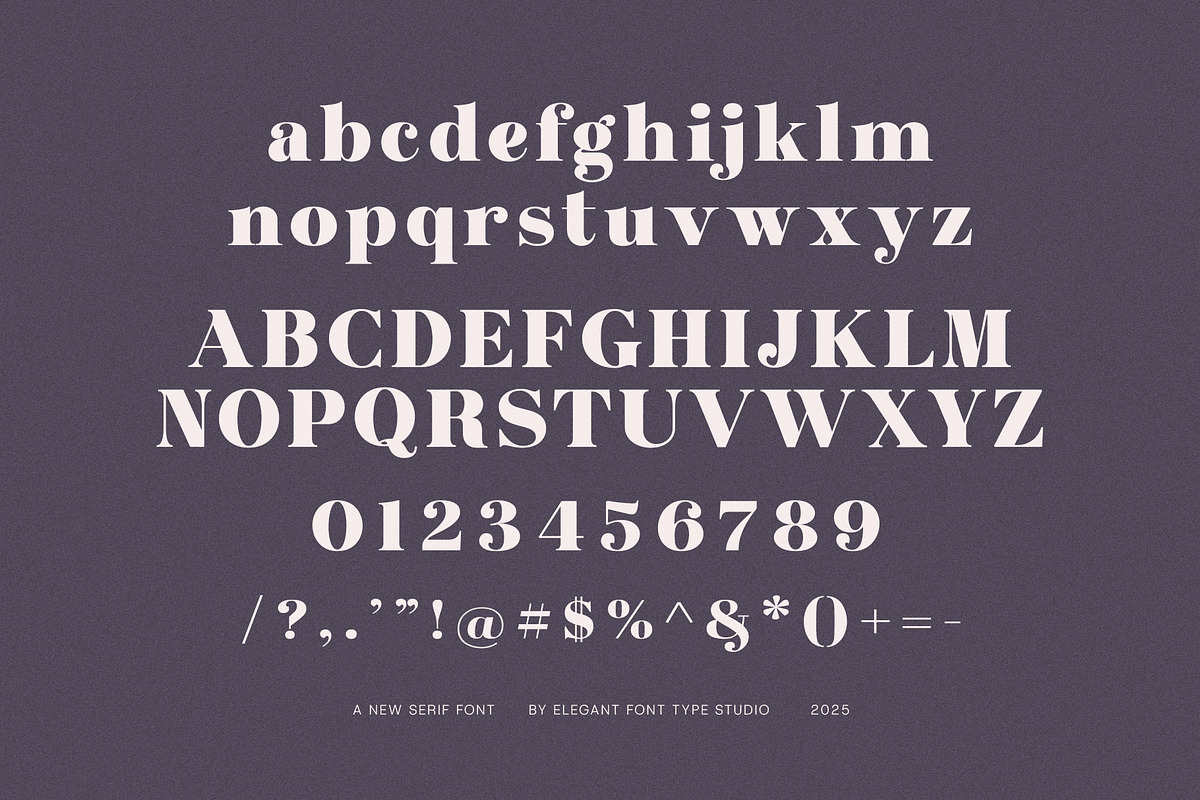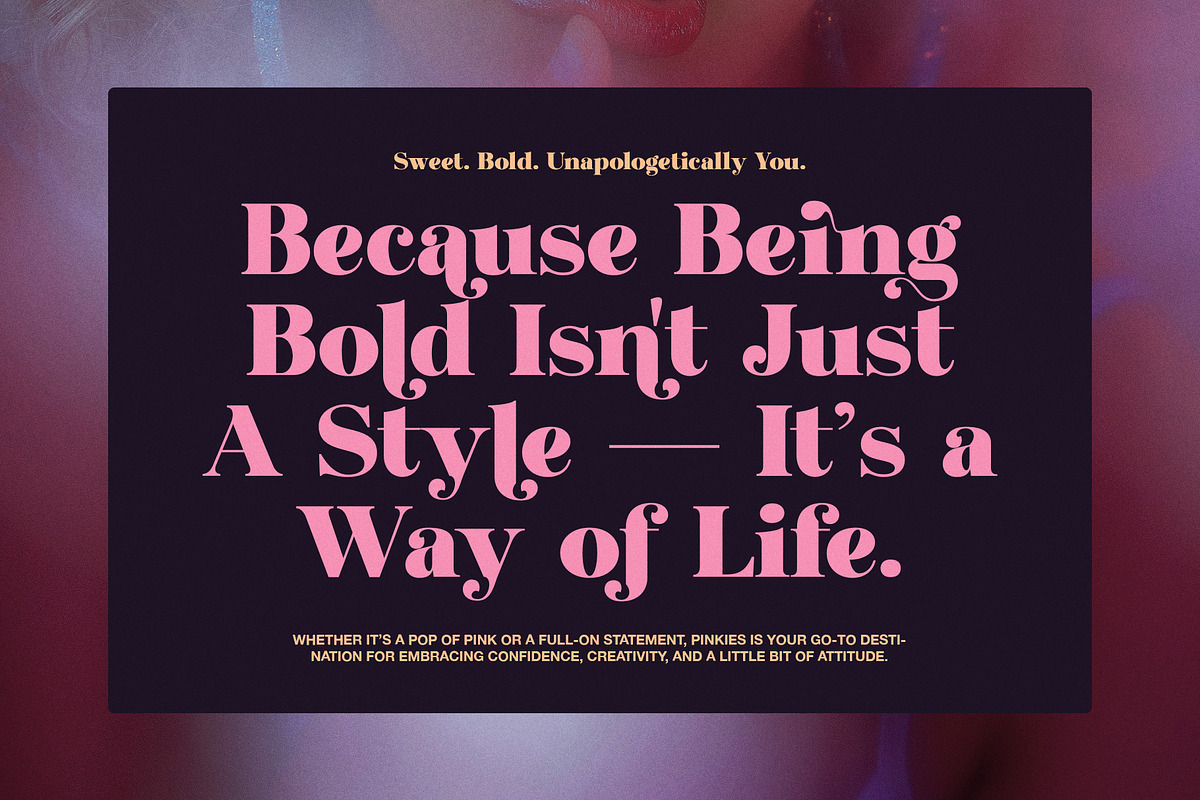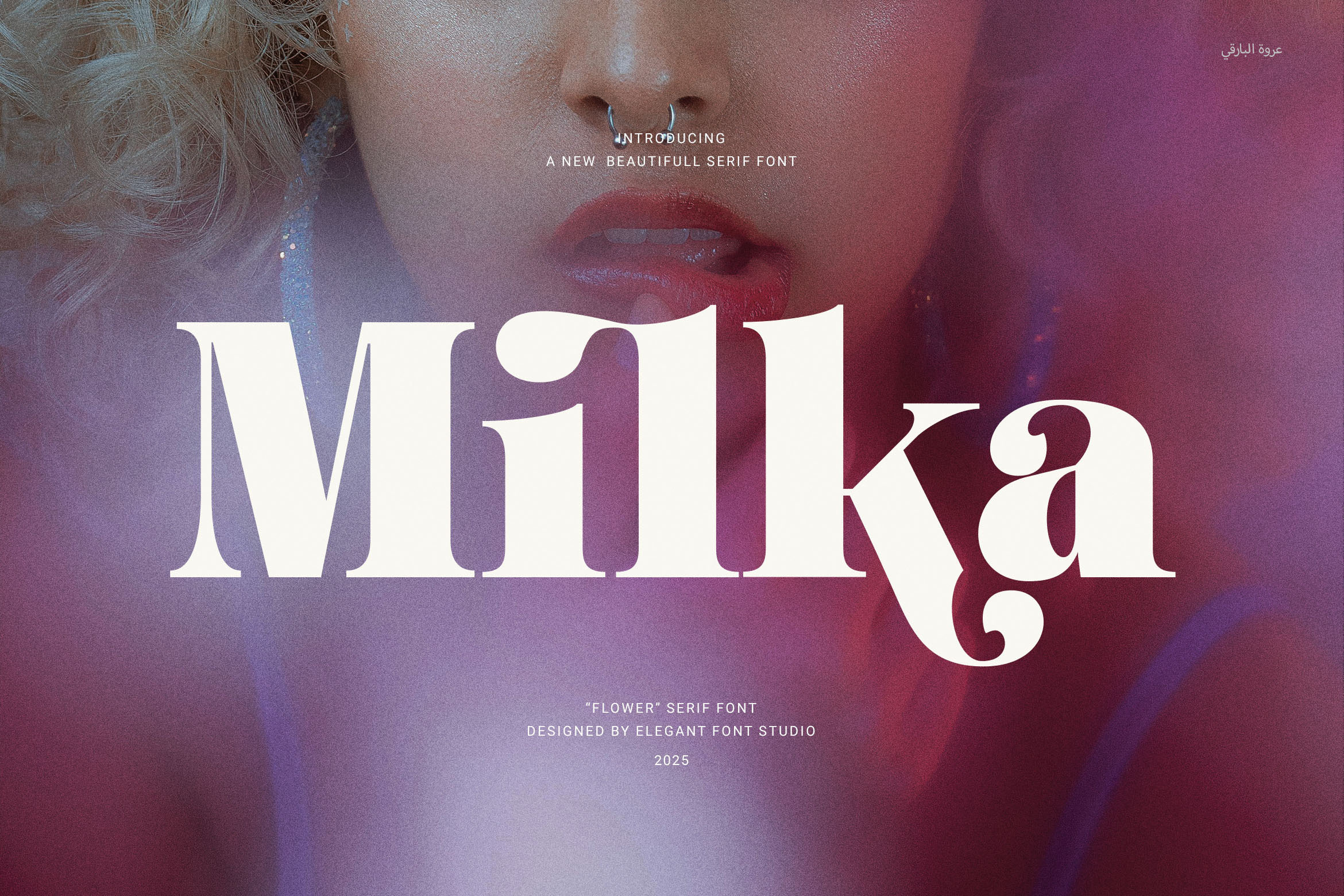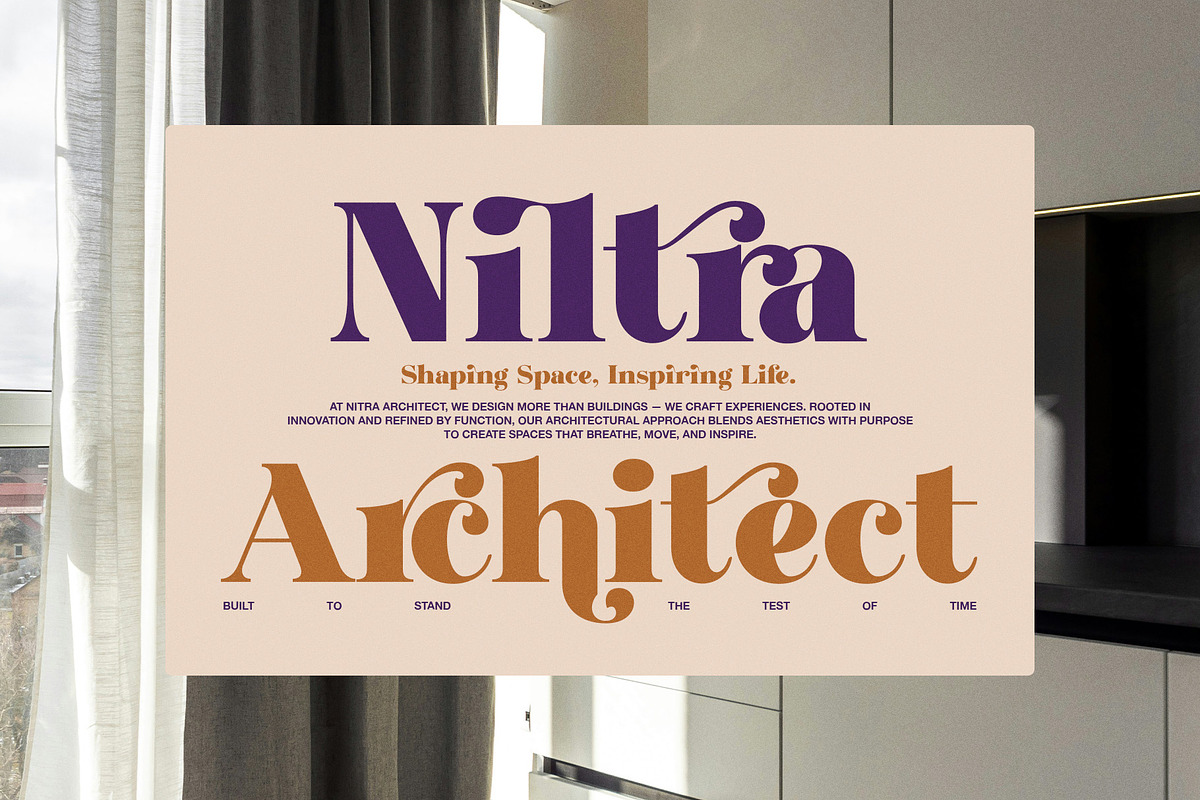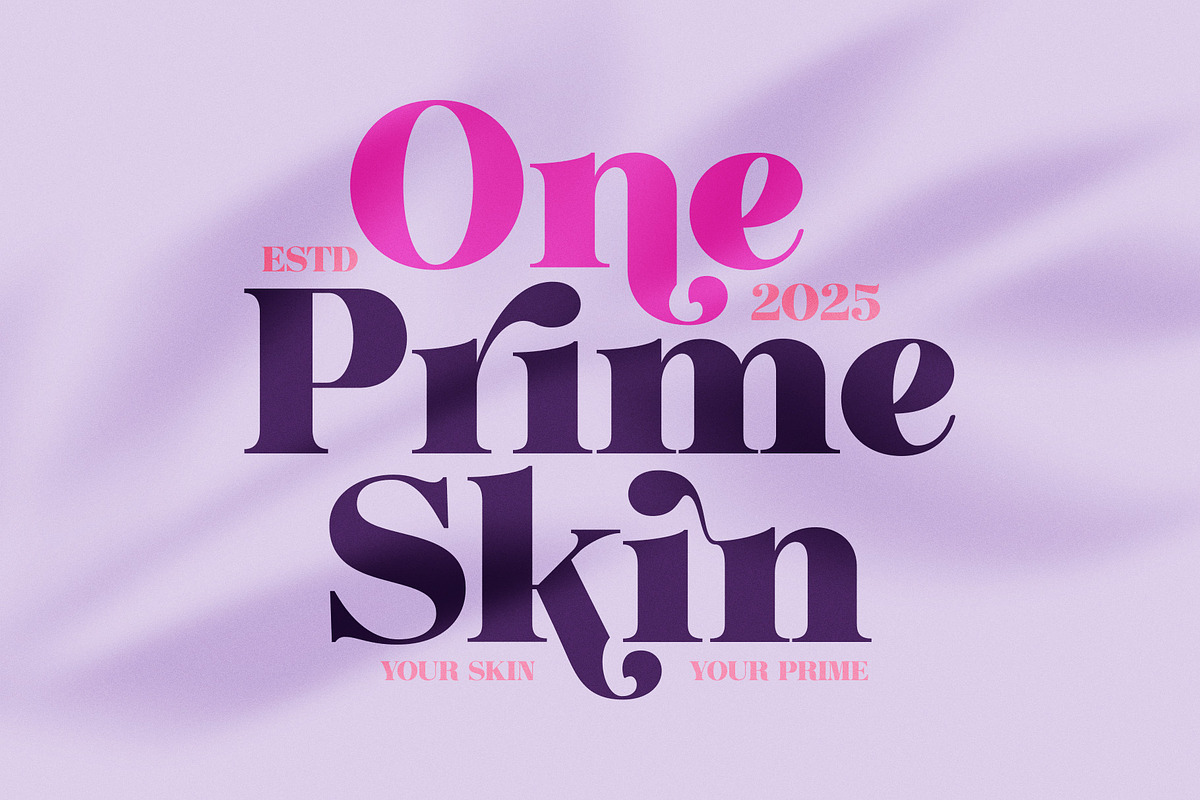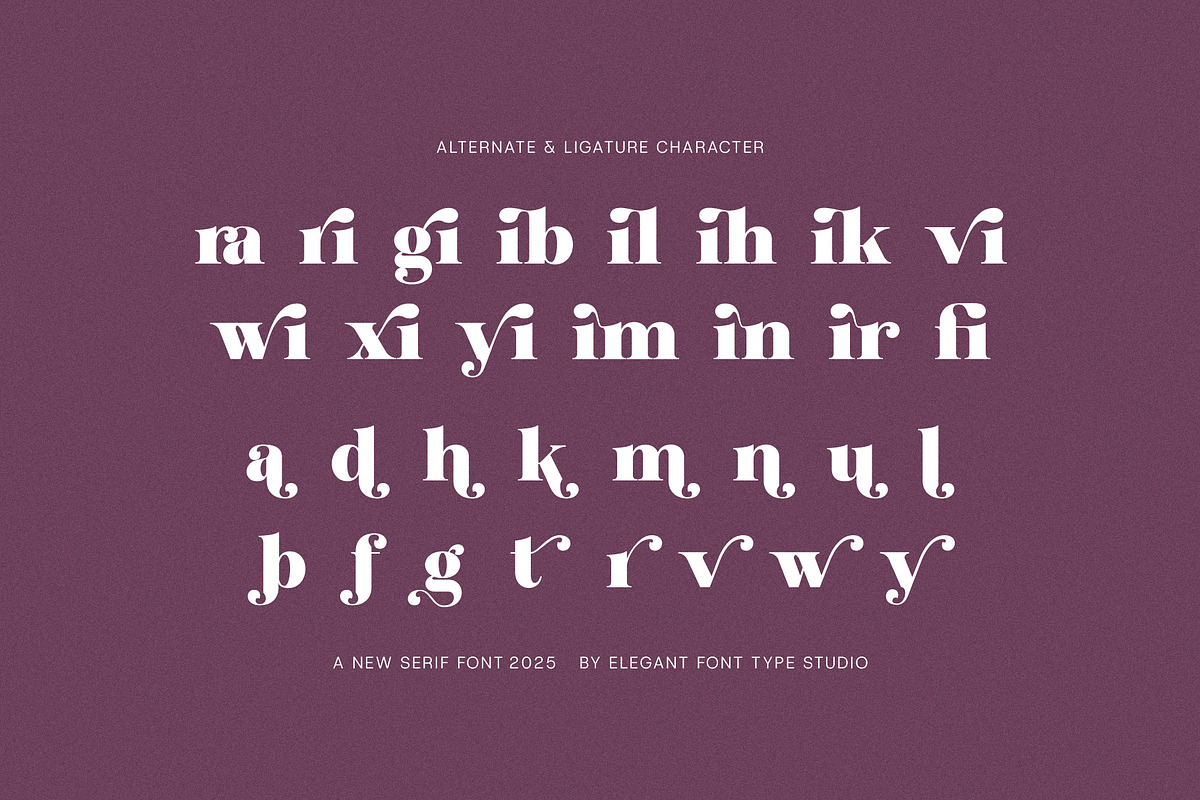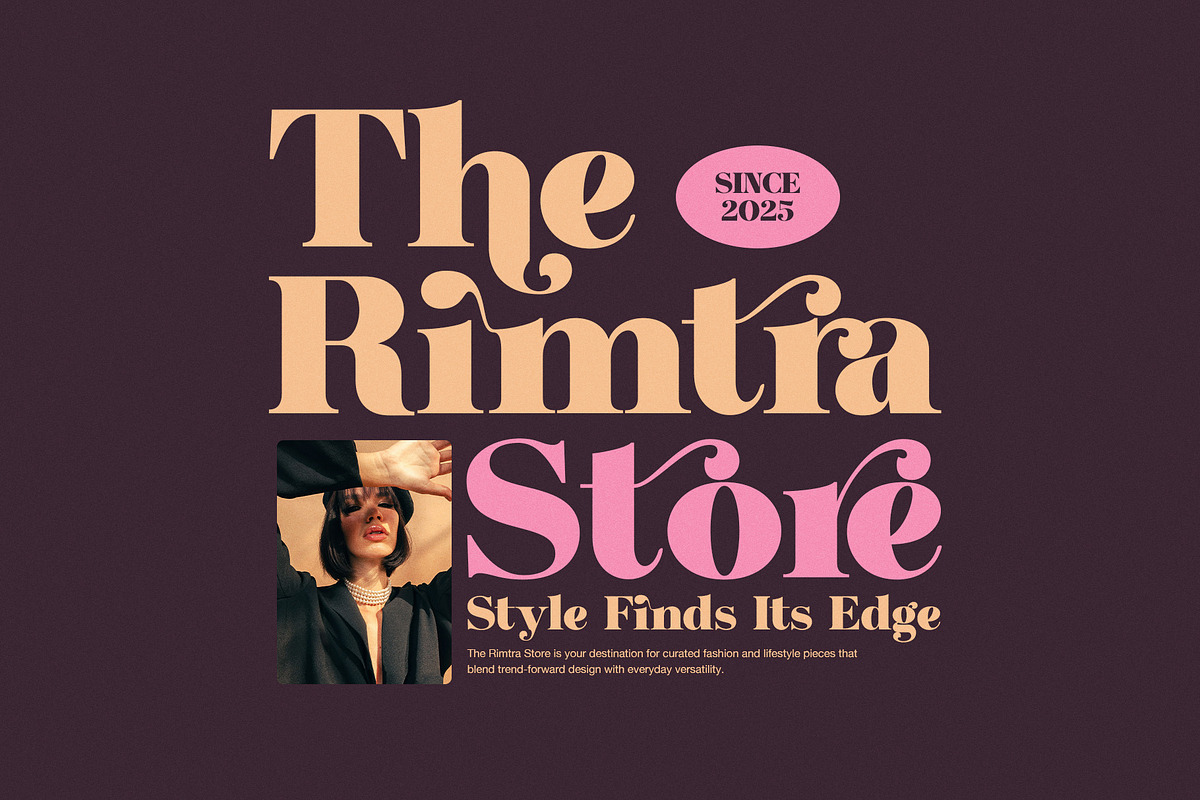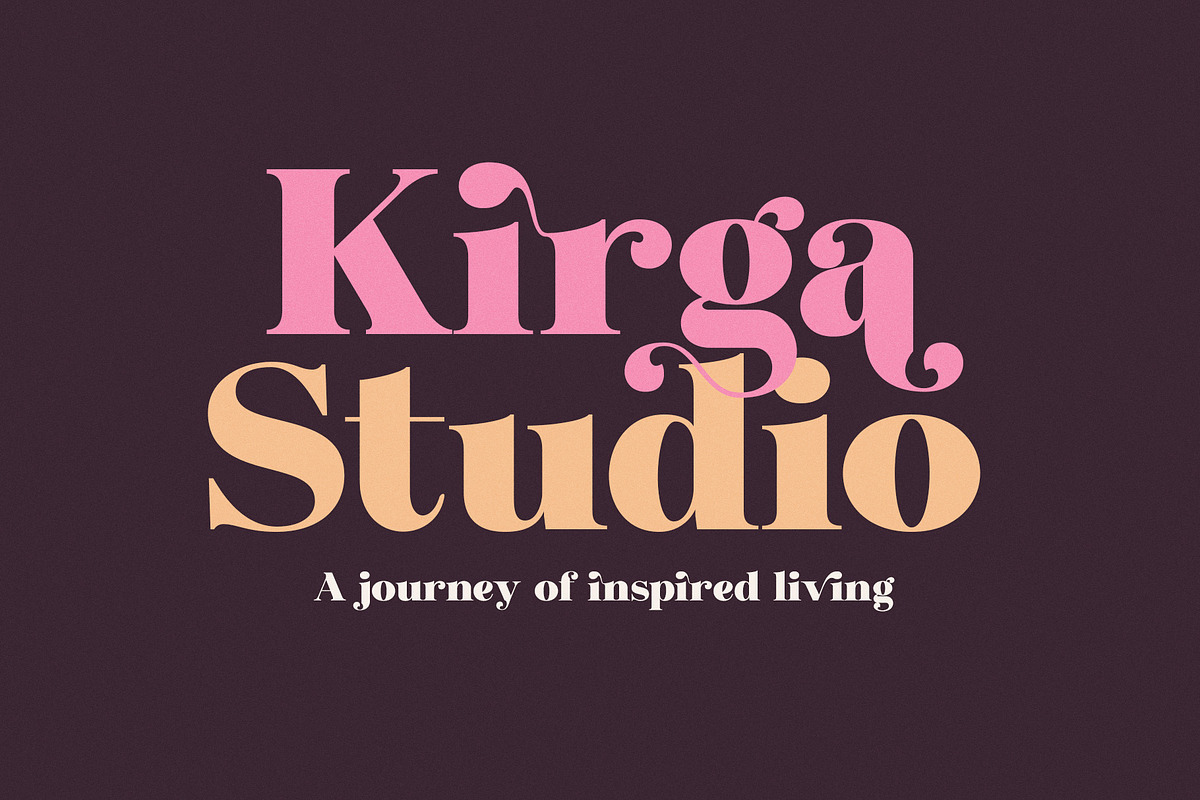
Milka Elegant Serif Font
Milka Elegant Serif Font — Stylish and Modern Typeface for Premium Branding
Milka Elegant Serif Font is a beautifully designed serif typeface that combines modern style with classic elegance. Its proportional shapes and smooth ligatures make it perfect for creating polished, professional designs. Use Milka for logos, websites, magazines, product packaging, or ads—it works well across many industries.
This font stands out with clear, easy-to-read letterforms. It suits boutiques, food brands, fashion labels, and corporate projects. Plus, Milka looks great both in print and digital formats, so your work always appears sharp and attractive.
Key features of Milka Elegant Serif Font include:
Balanced serif design made for all branding needs
Functional ligatures that create smooth text flow
Great for logos, corporate branding, websites, magazines, and packaging
Perfect choice for boutiques, food products, advertising, and luxury brands
High readability in print and digital media
In short, Milka Elegant Serif Font is ideal for designers and businesses who want a modern serif font that feels both stylish and professional. It brings elegance and clarity to every design.-